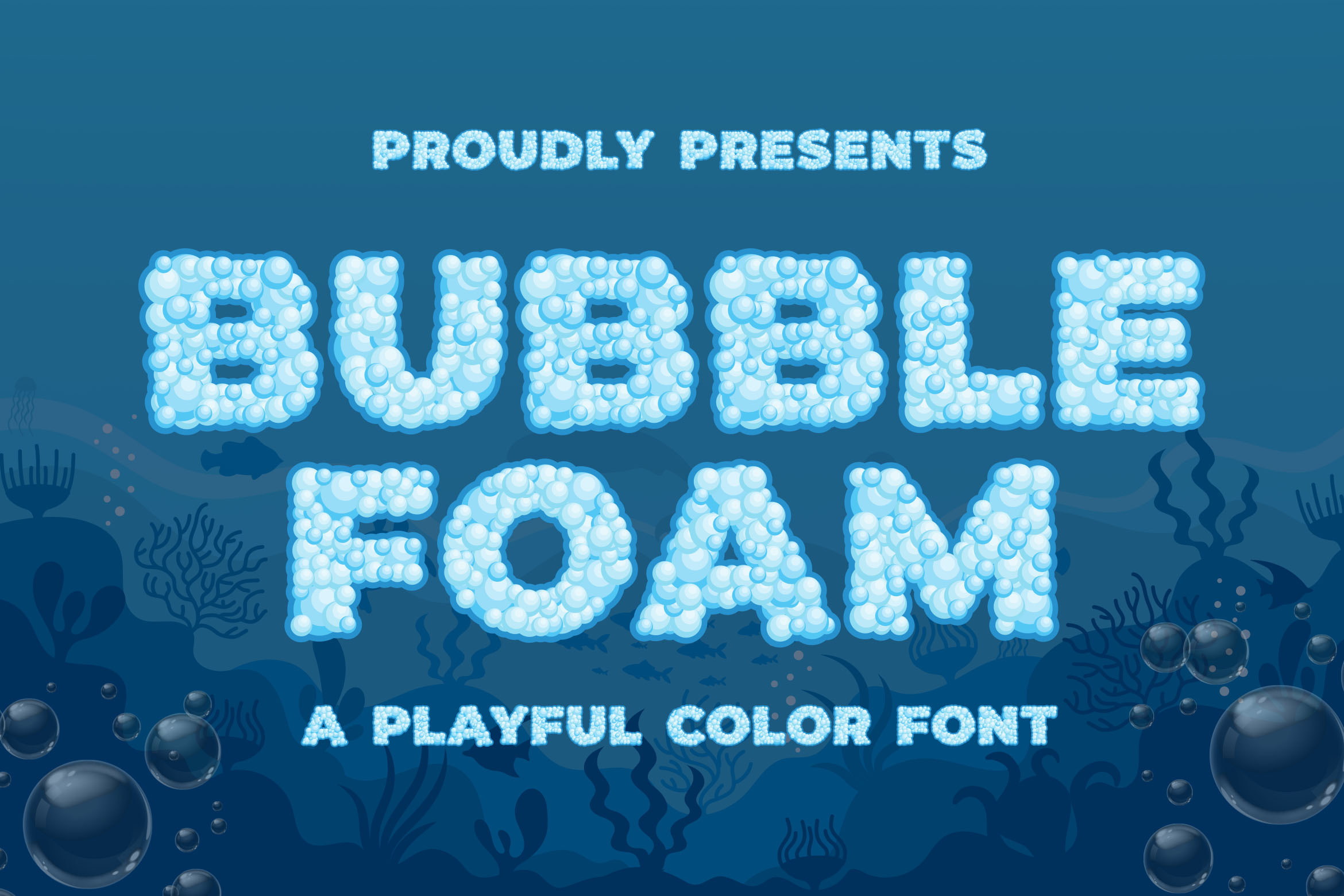
Bubble Foam a SVG Color Font
Are you looking for a SVG font? Do you want of creating Something that stand out and inspire creativity, imagination, and endless fun? Wait no more, we will give you the best choice.
Bubble Foam a SVG Color Font Inspiring from Playful typography. This font is perfect for a design that makes it more attractive and playful. made with a very good level of aesthetics making this font suitable for book cover, poster, packging, merchandise, logotype and much more.